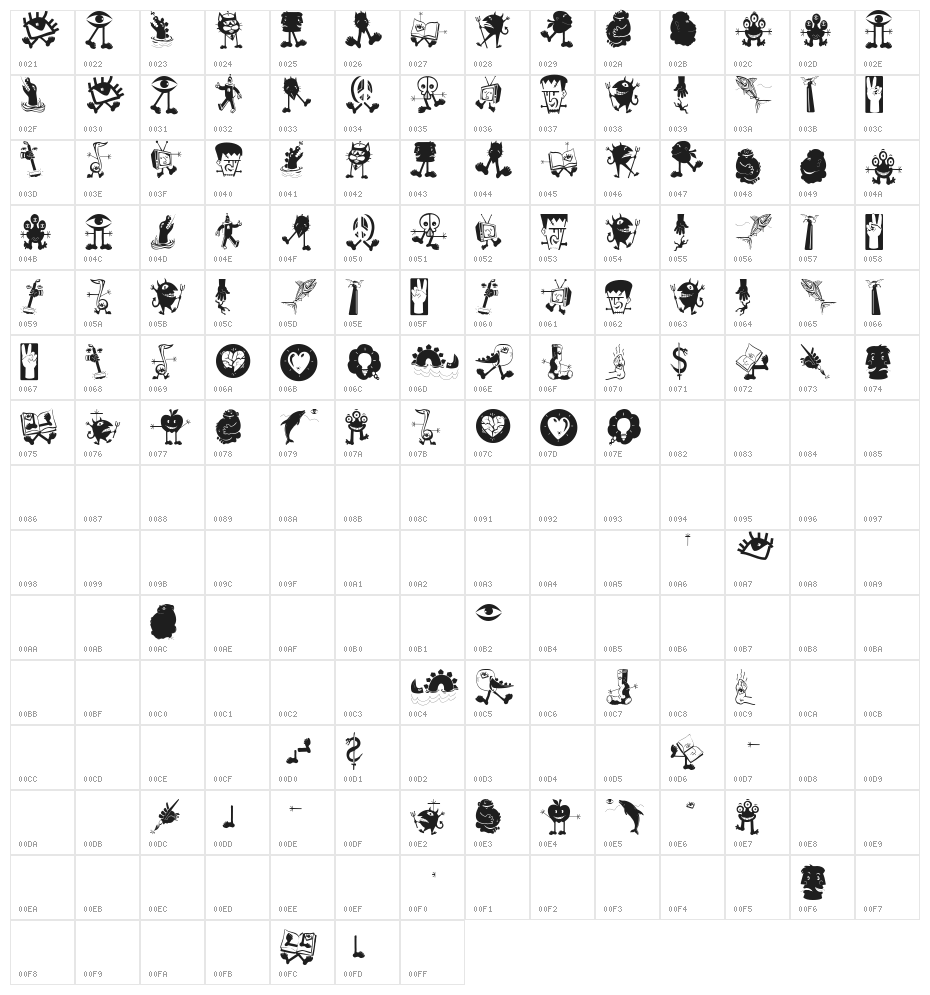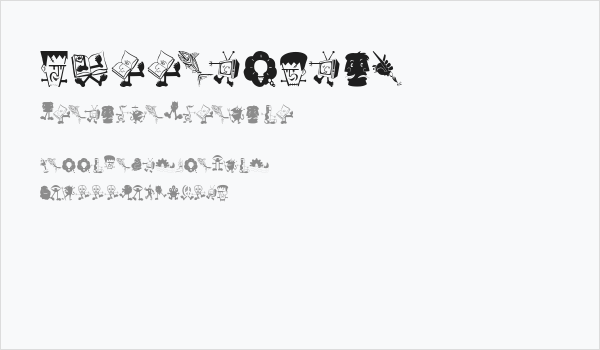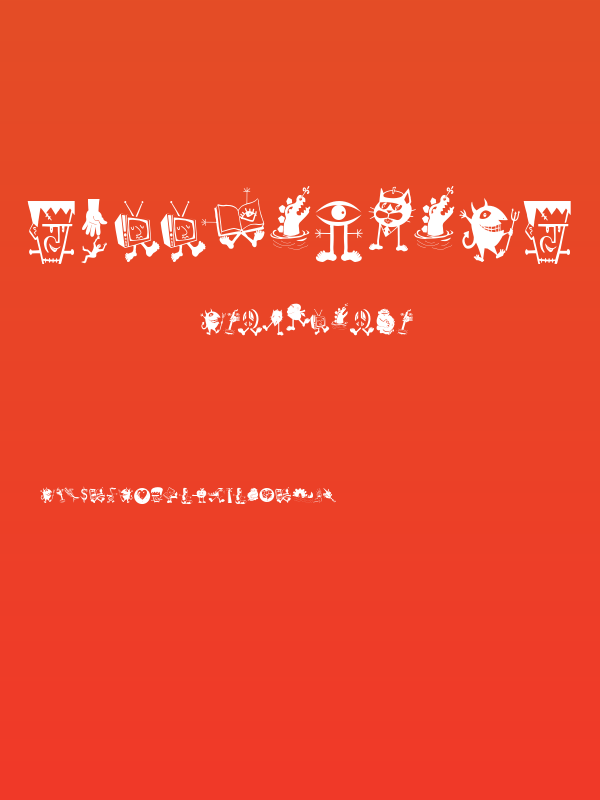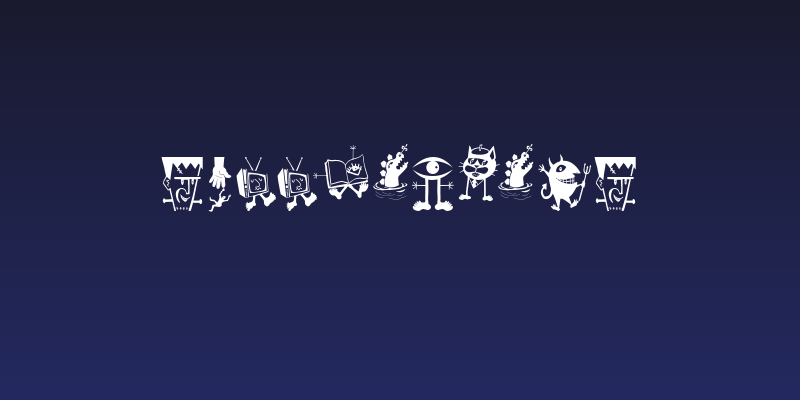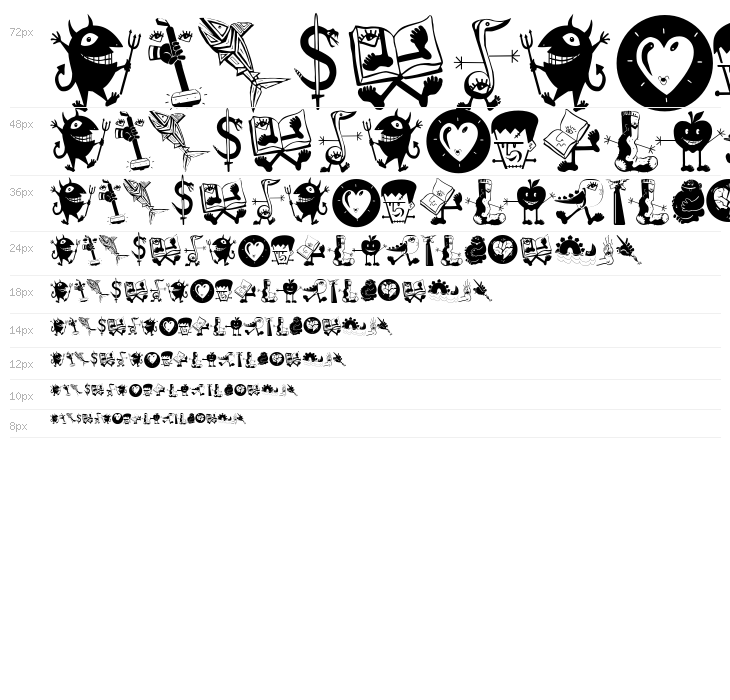
Surrealbats Font
| Gesamtstil | Whimsical, Surreal, Playful |
| Anwendungsfall | Illustrations, Branding, Merchandise |
| Vorgeschlagene Projekte | Ideal for children's book illustrations, creative branding, playful merchandise, and unique poster designs. |